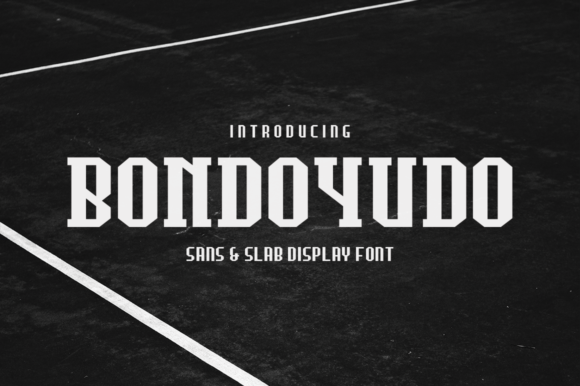
Welcome to the world of captivating typography, where the Bondoyudo font beckons you to unleash your creativity and leave an indelible mark on the digital canvas. A testament to the power of visual communication, this display font exudes strength and boldness that will elevate your designs to new heights. Its commanding presence and distinct character make it a perfect choice for those seeking an impactful statement in their creations.
Imagine designing logos that demand attention, posters that jump off the page, and social media content that resonates with your audience. The Bondoyudo font is your trusted ally in crafting visual masterpieces that draw eyes and ignite emotions. Its bold strokes and confident angles create a striking effect that instantly captures the viewer's attention, leaving a lasting impression long after the page is turned or the screen is scrolled.
With the Bondoyudo font at your disposal, you unlock a world of possibilities to create designs that speak volumes. Its ability to convey strength and boldness makes it an ideal choice for projects that demand a powerful presence. Whether you're designing a website, branding a new business, or creating eye-catching marketing materials, the Bondoyudo font will elevate your work to a level of sophistication and impact that is sure to leave a lasting impression.
But what truly sets the Bondoyudo font apart is its versatility. As a display font, it can be effortlessly integrated into a wide range of design projects, from bold headlines and eye-catching titles to stylish posters and social media graphics. Its adaptability makes it a valuable asset for designers looking to create visually appealing and impactful content across multiple platforms.
So, embrace the boldness and strength of the Bondoyudo font, and embark on a journey of creative expression that will leave your audience in awe. Let your designs speak louder than words, and let the Bondoyudo font be your faithful companion in capturing hearts and minds.